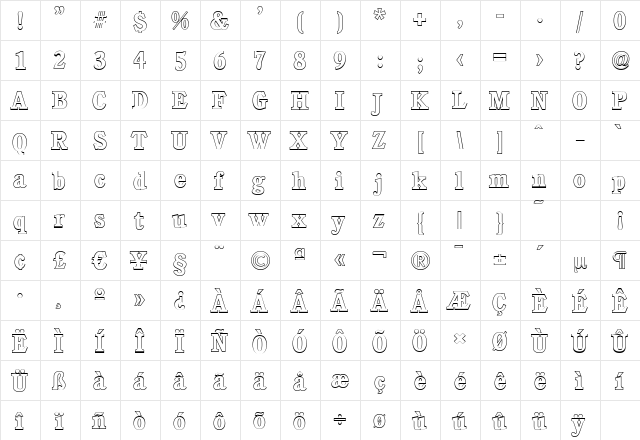
CalgaryOutline Bold Font Preview
CalgaryOutline Bold
CalgaryOutline Bold Font Details
Design Context for CalgaryOutline Typeface
CalgaryOutline brings ornamental detail and strong personality to headlines and identities, where visual impact matters more than quiet functionality. Its bold stroke weight gives it real presence on the page.
Font Pairing: Pair with a clean neutral sans-serif for body copy to let CalgaryOutline's character lead without overwhelming the composition.
Pro Tip: Treat CalgaryOutline as the centrepiece of your typographic hierarchy. One strong heading set in a decorative face can carry an entire layout.